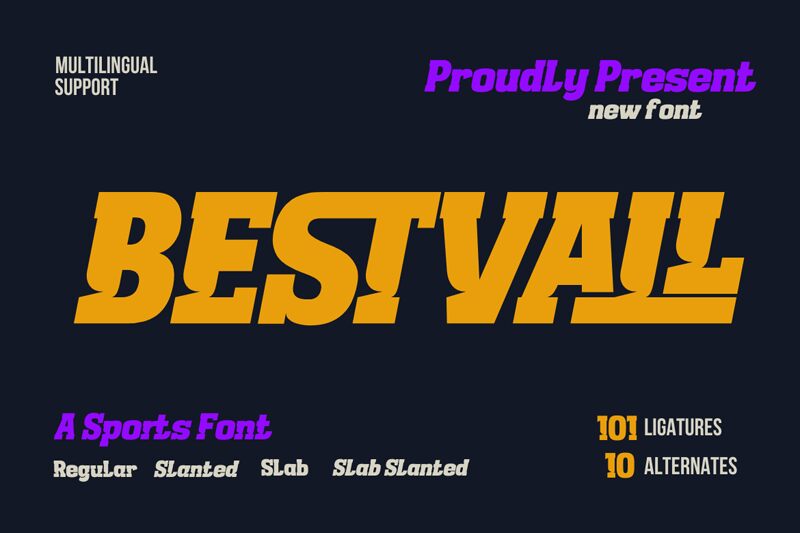
Bestvall font by Twinletter is a bold display typeface with an authoritative mood, inspired by classic slab serifs and geometric influence. It has a strong presence and notable vintage appeal that makes it stand out in any context. It creates the perfect combination of modernity merged with historical elegance for capturing attention with your message.
Handwritten notes, greeting cards, flyers, business cards, app designs (UI), magazines, newspapers (headlines), posters, banners, book covers (titles), package labels & stickers are possible uses of this free display font. Enhanced legibility paired accompanied playful energy can expand your design possibilities to reach larger audiences more effectively!
BESTVALL Regular